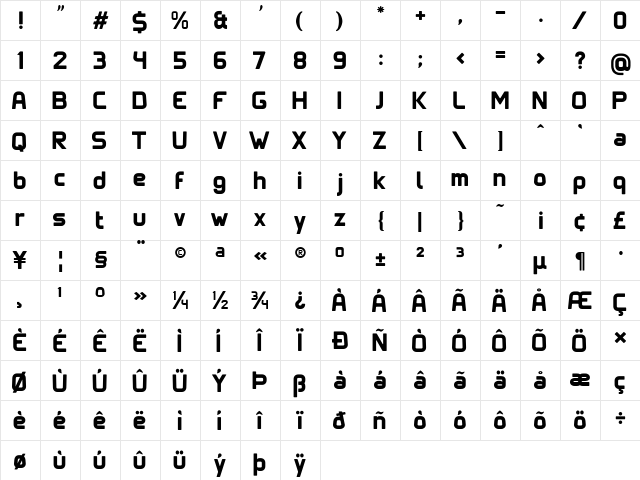
Clipangle Bold
| Foundry | Yves Michel |
| Designer | Yves Michel |
Design Context for Clipangle Typeface
Clipangle takes a measured approach to typography — its balanced proportions and neutral character make it a reliable workhorse for both digital and print work. Its bold stroke weight gives it real presence on the page.